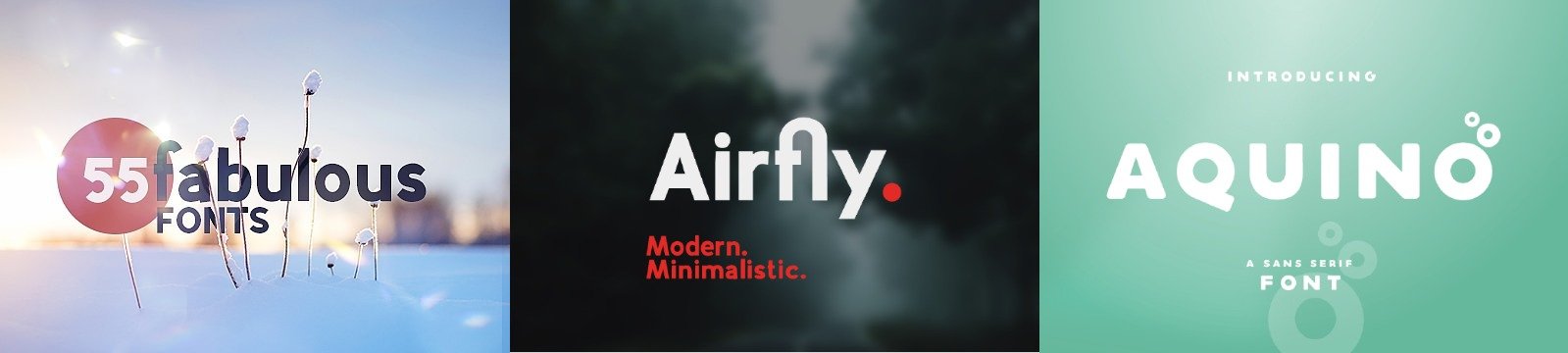
This selection of modern and artistic fonts will help you create the most outstanding projects! This fantastic collection includes 55 fonts from 16 font families. Software Requirements: Font editors such as Word, Illustrator, InDesign or similar.